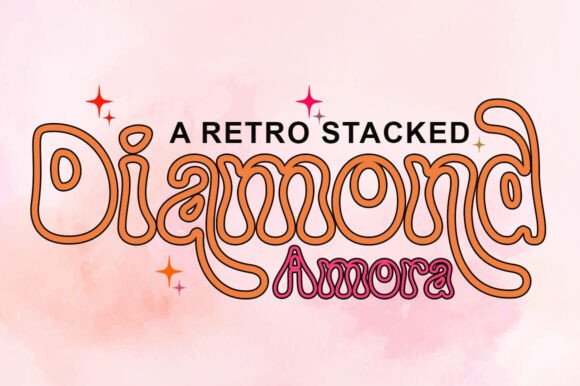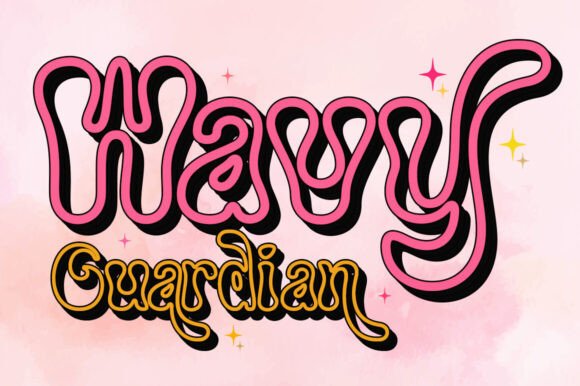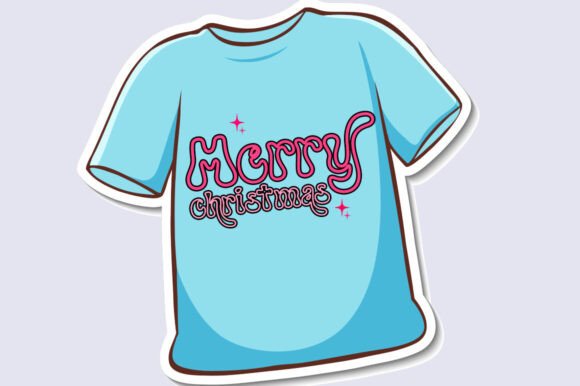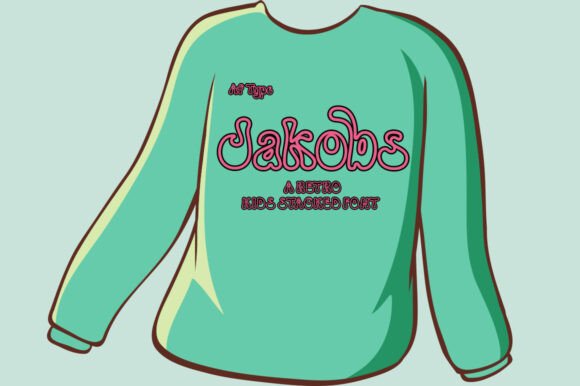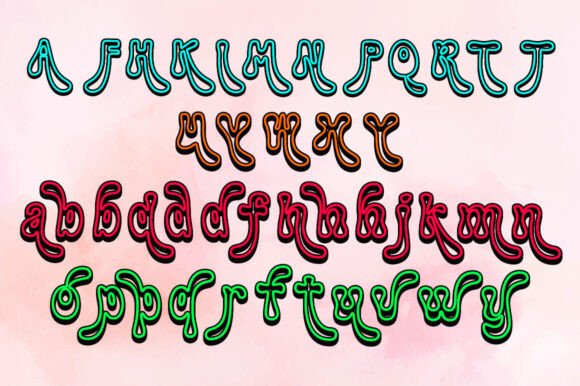
The Joy of Designing with Kids Stacked Outline Font
Who hasn’t felt that rush of excitement when staring at a blank page, waiting for the perfect idea to strike? It’s in these moments of creative freedom that we discover our true potential as designers. And what better way to unlock that potential than with a font that’s as playful as it is charming?
Enter Kids Stacked Outline Font, a delightful display font that’s sure to bring a smile to your face. Whimsical and quirky, this font is perfect for adding a touch of magic to your designs. Whether you’re working on a children’s book, a birthday party invitation, or a social media campaign, Kids Stacked Outline Font is sure to elevate your project and make it stand out from the crowd.
For designers, Kids Stacked Outline Font is a valuable addition to any font library. Its unique style and charm make it an excellent choice for projects that require a touch of personality and whimsy. So why not give it a try and see the amazing things you can create with Kids Stacked Outline Font?
Kids Stacked Outline Font Key Features
- Unique Characteristics: The font features a stacked, outline design with a playful and educational theme, making it ideal for use in children’s educational materials, such as workbooks, posters, and signage.
- Font Style and Weight: The font comes in a single style and weight, with a consistent outline design throughout.
Designer Review: Kids Stacked Outline Font
Overall, I think the Kids Stacked Outline Font is a cute and playful font that could be great for children’s products or educational materials. Here are some things that stand out:
- ✨ The font’s stacked design makes it easy to read and understand, even for young children.
- ✨ The font comes in a variety of weights and styles, which gives designers a lot of flexibility when it comes to choosing the right look and feel.
- ✨ The font’s outline design makes it easy to see the text, even when it’s used on a busy or colorful background.
However, there are a few things that could be improved:
- ⚠️ The font could benefit from more character variations, such as punctuation and special characters.
- ⚠️ Some of the letters in the font feel a bit chunky or awkward, which could be a problem for designers who need a more refined look.
- ⚠️ The font’s outline design can sometimes make it difficult to see the text when it’s used on a dark or high-contrast background.
Overall, I think the Kids Stacked Outline Font is a solid choice for designers who need a playful and easy-to-read font for children’s materials. With a bit more development and refinement, it could be an even more effective and versatile font.
The Kids Stacked Outline Font is ideal for creating playful and whimsical designs, such as:
Children’s book illustrations
Party invitations and decorations
Education and learning materials
Remember to experiment with different font sizes, colors, and combinations to get the most out of this unique font.